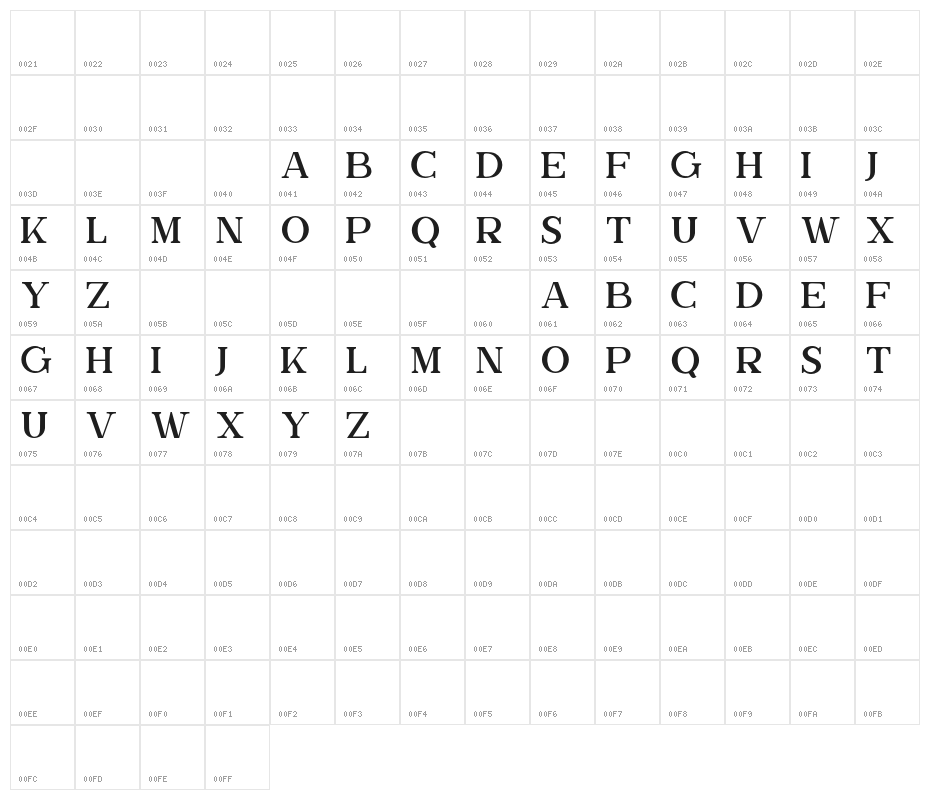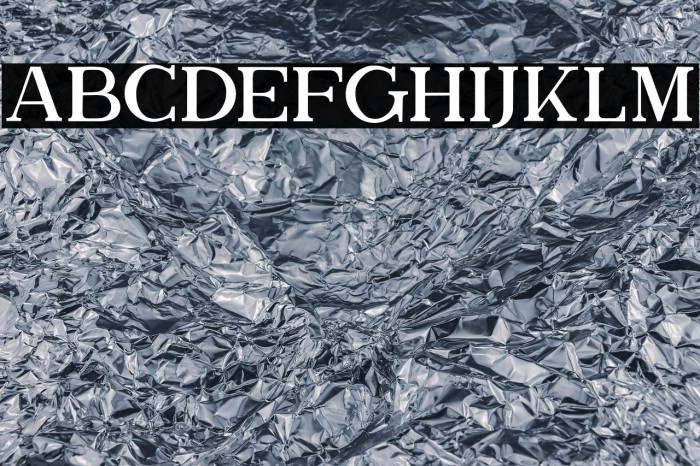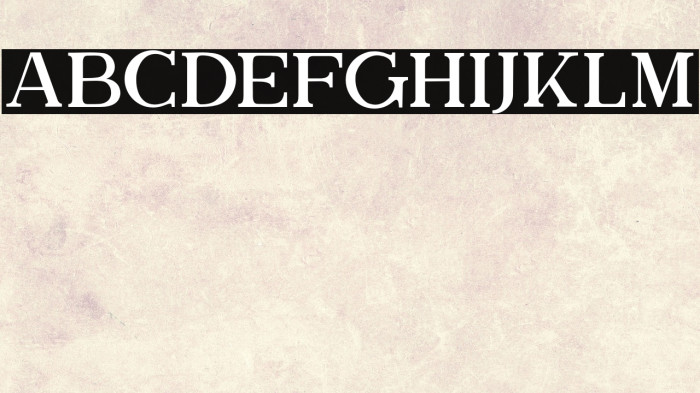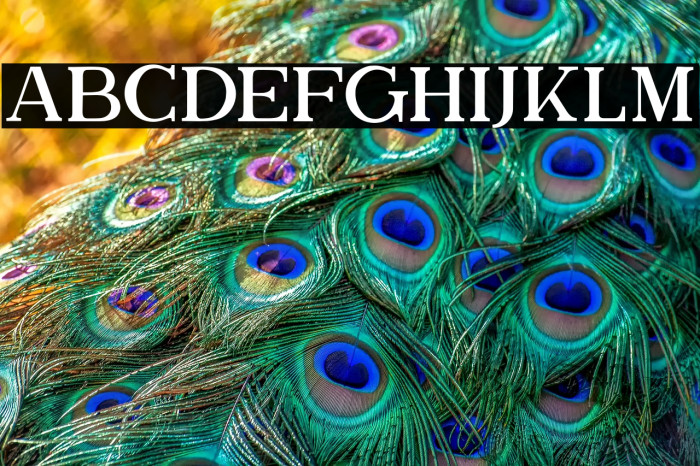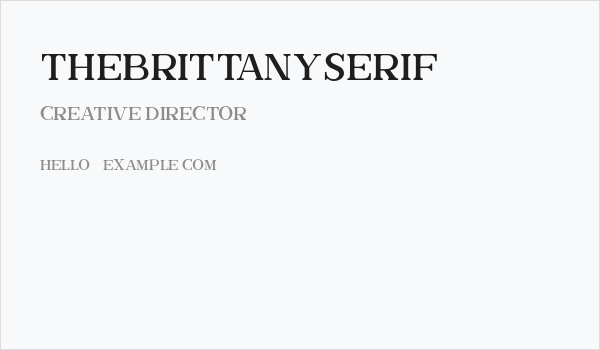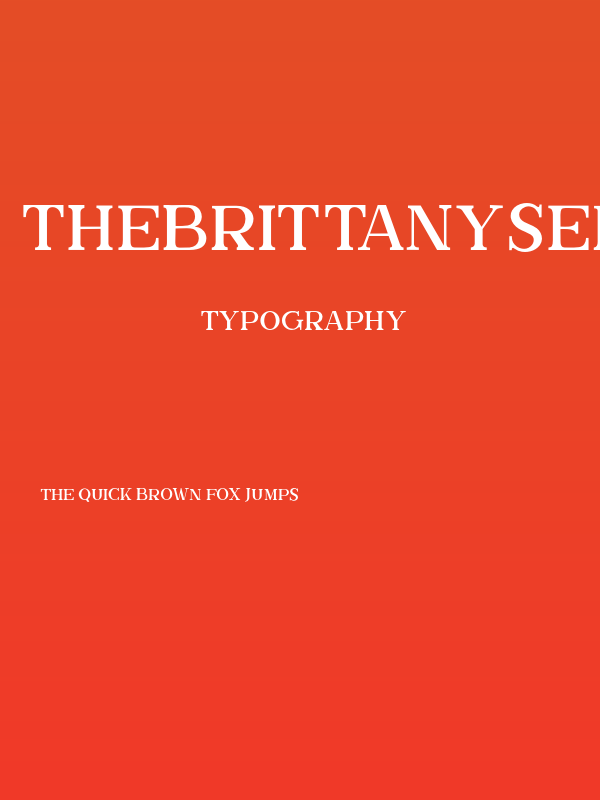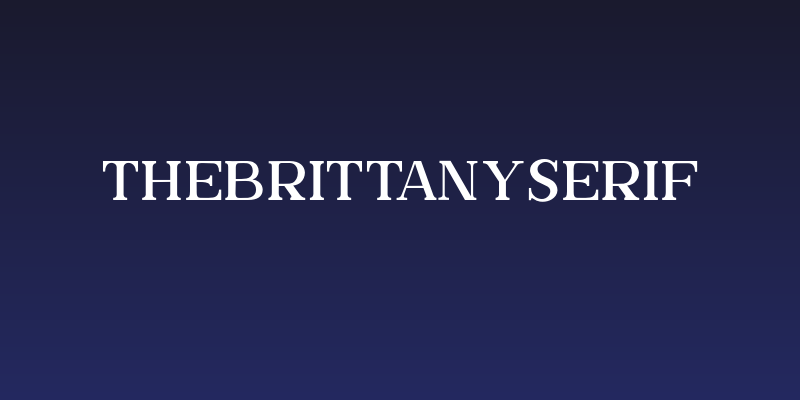
TheBrittanySerif Font
TheBrittanySerif Description
This serif font features a classic and elegant design with distinct, sharp serifs that give it a timeless appeal. The characters are well-proportioned, with a moderate contrast between thick and thin strokes, enhancing readability while maintaining a sophisticated look. The uppercase letters exhibit a traditional style, while the lowercase letters maintain a consistent and harmonious flow. The numerals are clear and balanced, making them suitable for both text and display purposes. The overall design is versatile, making it suitable for a wide range of applications, from formal documents to branding materials.
| Proposed Projects | Ideal for book covers, formal invitations, branding, editorial design, and corporate identity materials. |